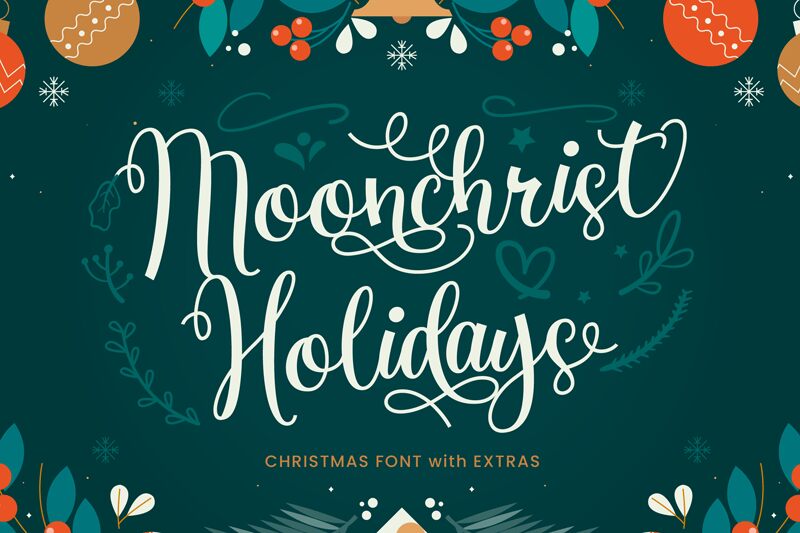
MoonchristHolidays-Regular
Moonchrist Holidays, designed by Lettersweet Studio, is a semi-light calligraphy font that exudes elegance and charm. Its fluidity captures the essence of handcrafted artistry, making it a perfect choice for projects that require a touch of sophistication. The sweeping curves and fine lines of Moonchrist Holidays suggest an aesthetic that is both contemporary and timeless.
This font's versatile style can enhance an array of creative endeavors—from wedding invitations to branding materials or seasonal greetings—lending each design a personal and emotionally resonant quality. Whether you're looking to impart warmth into your holiday cards or add flair to your event's visual theme, Moonchrist Holidays stands out as an exquisite selection for conveying messages with grace and flair.